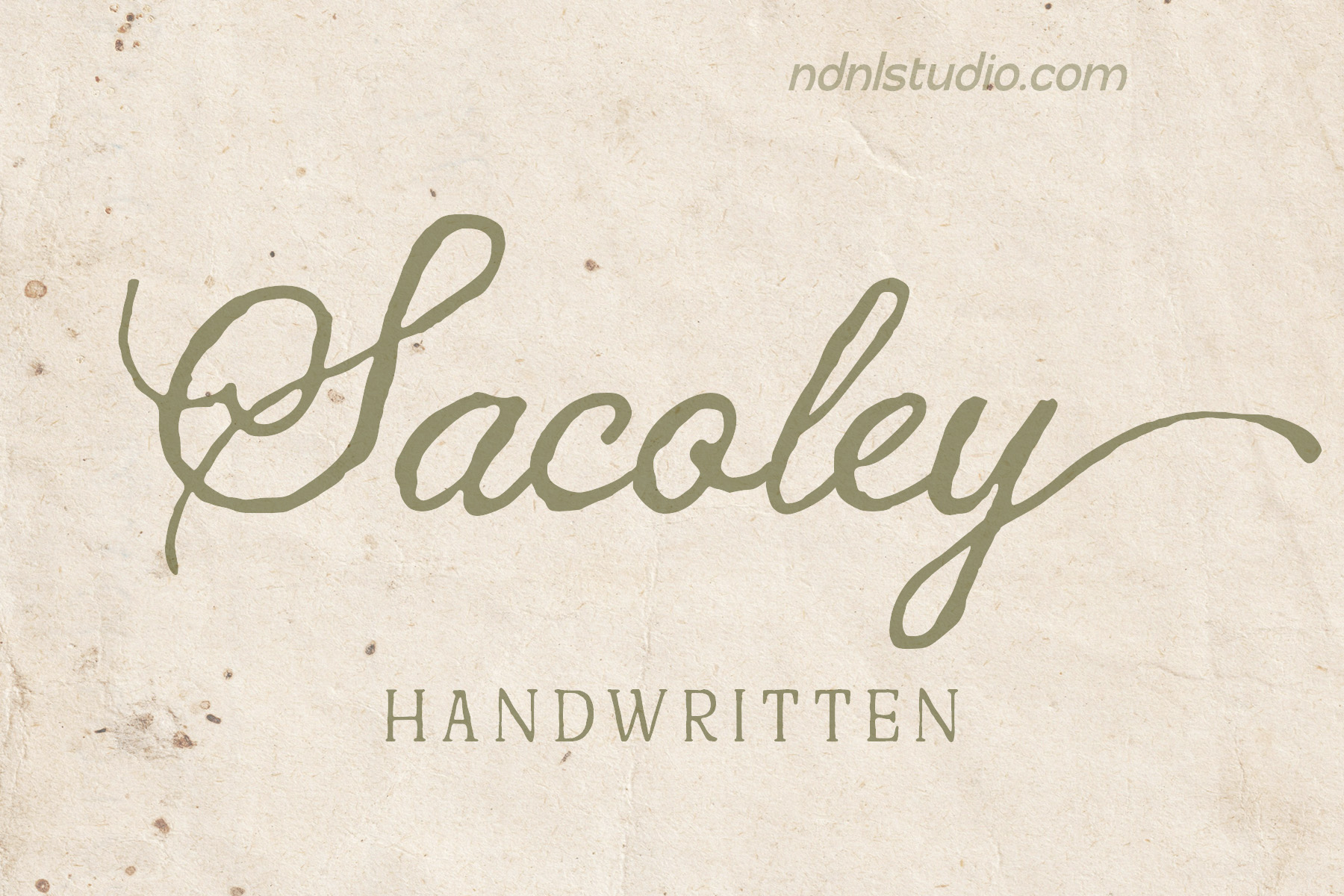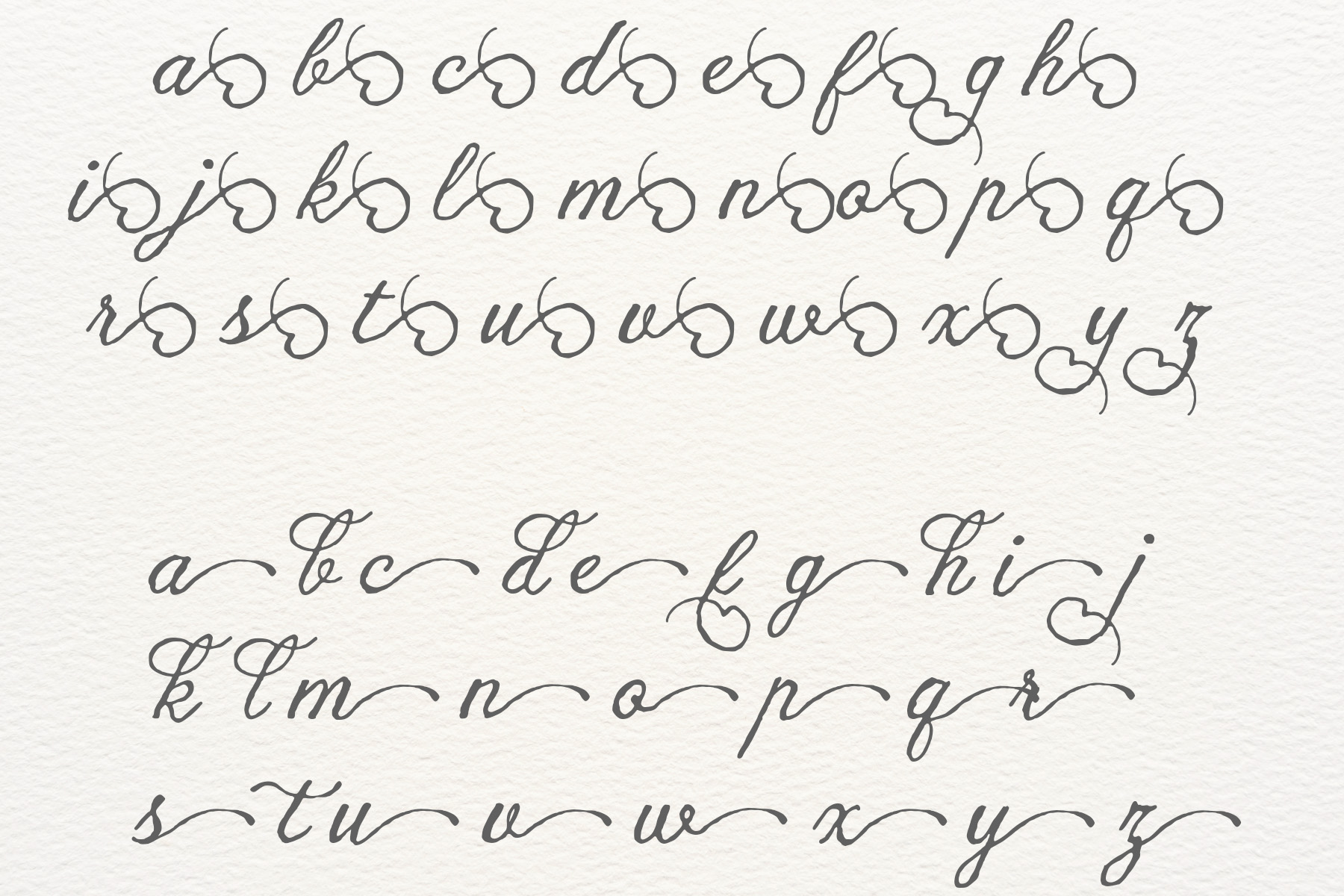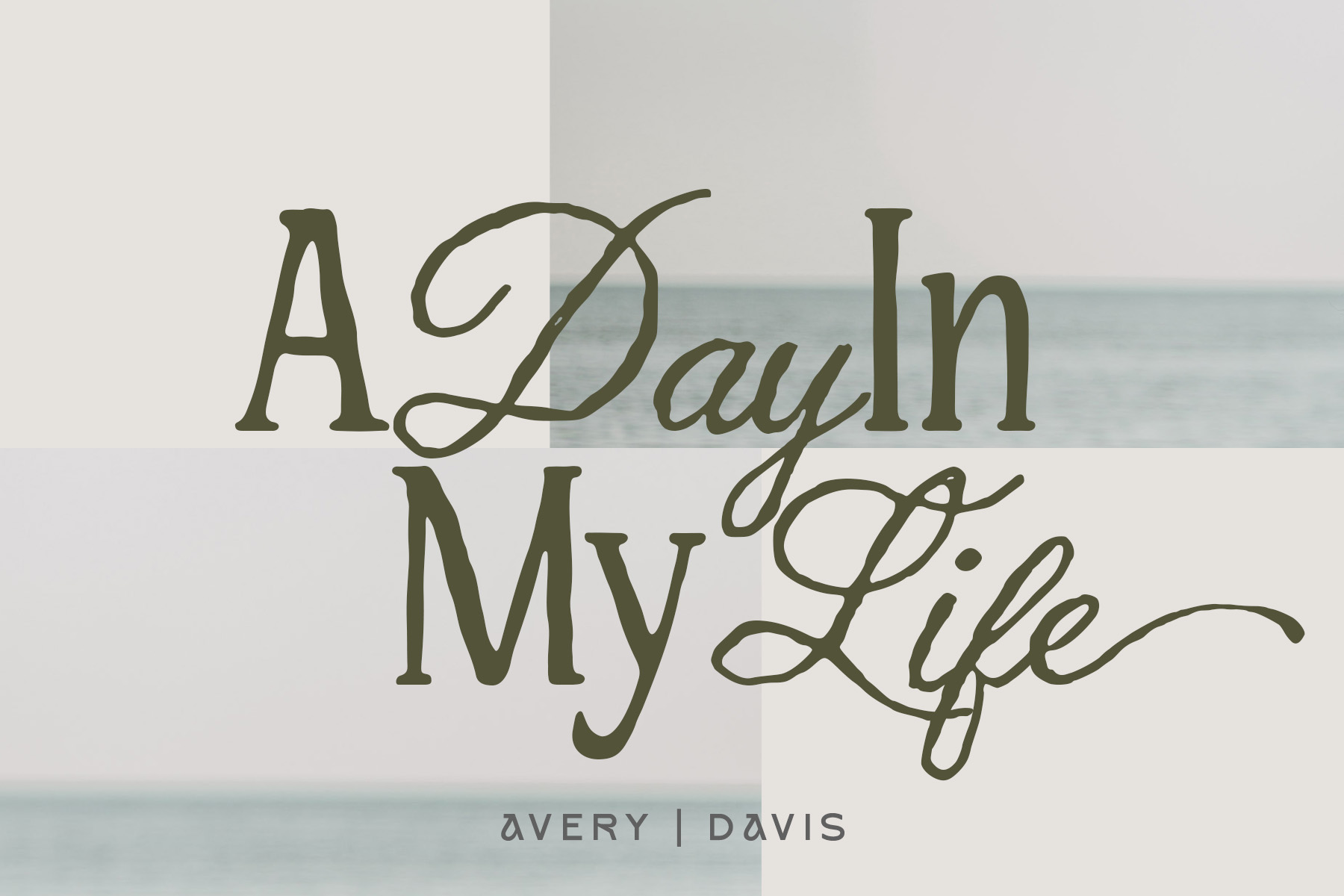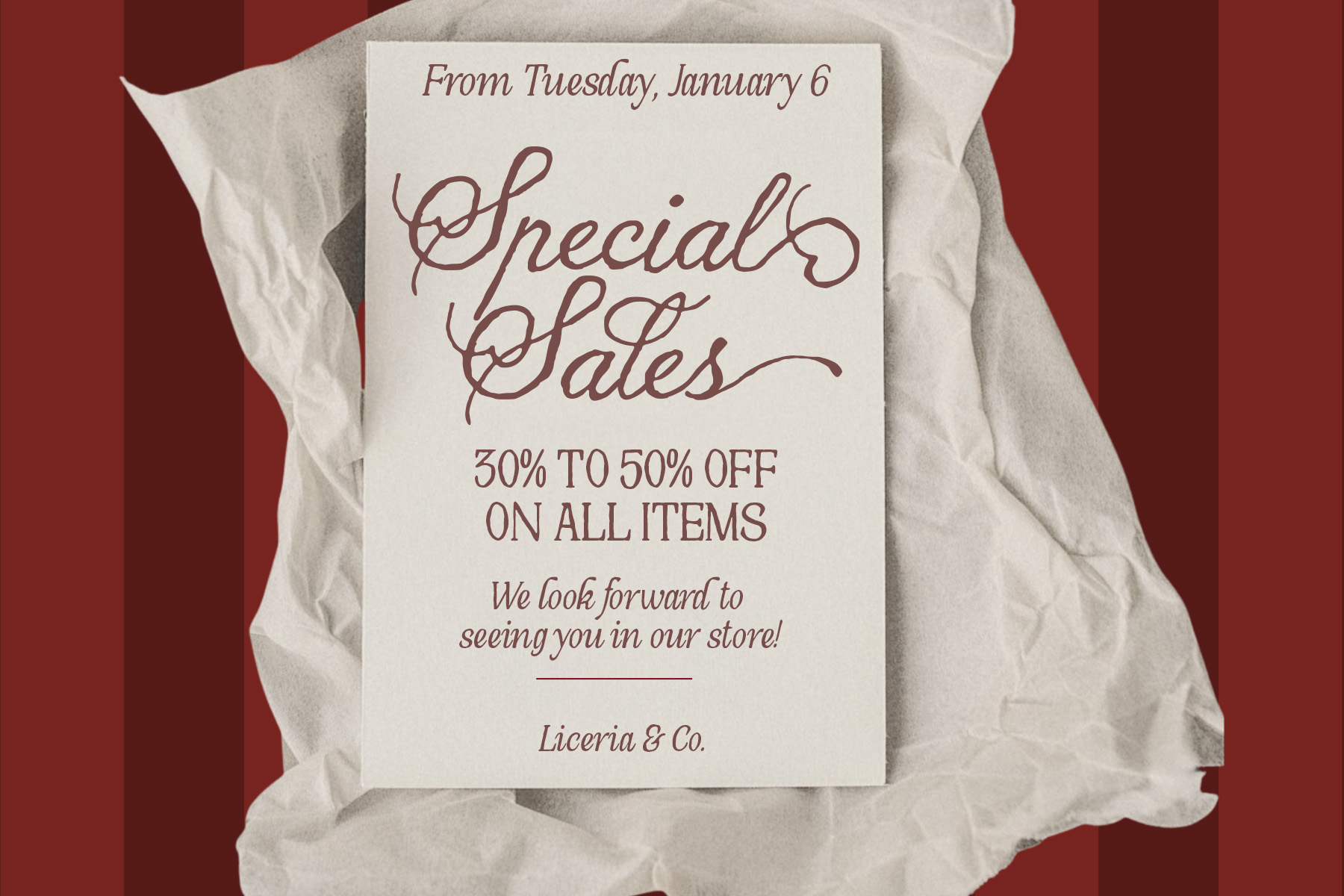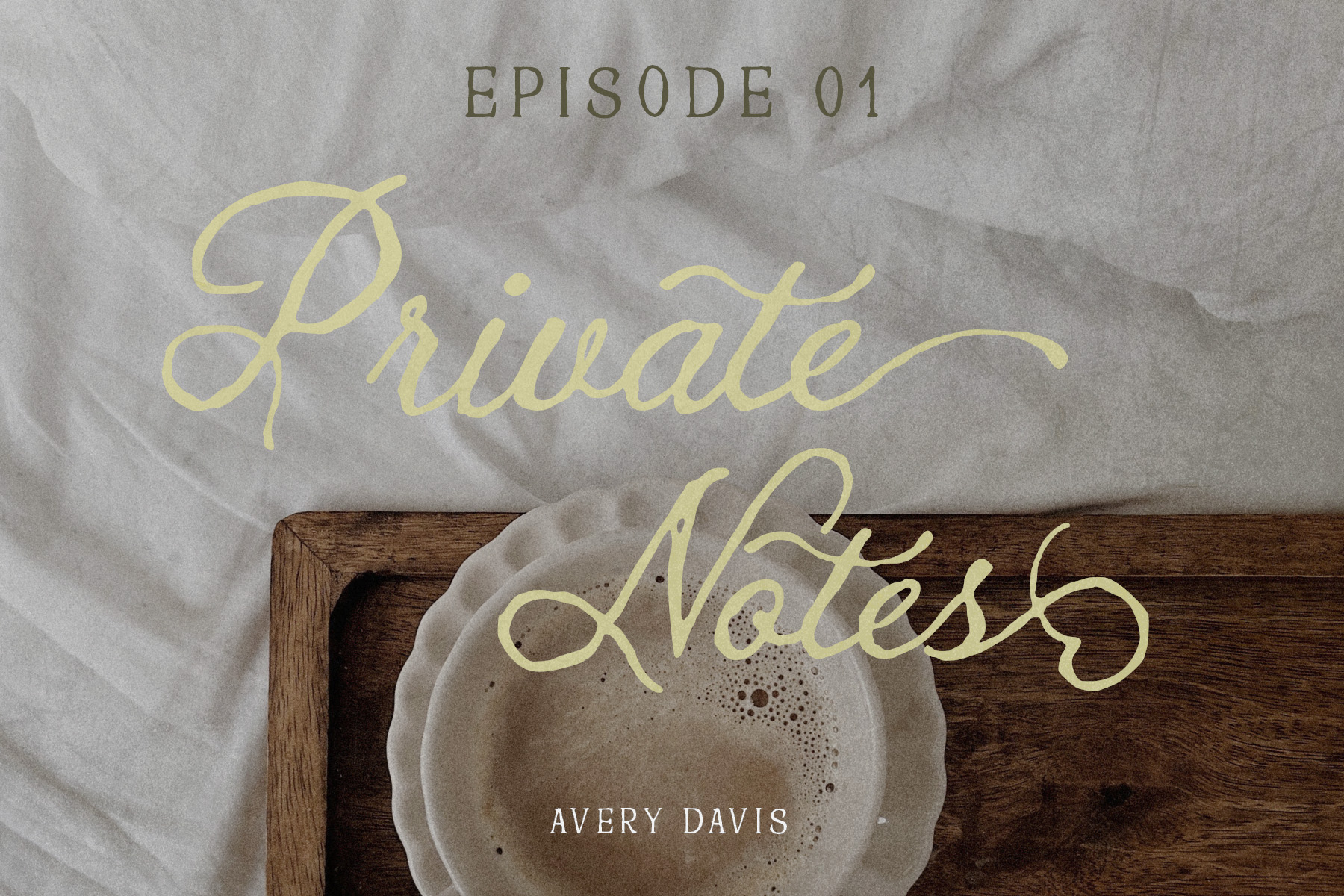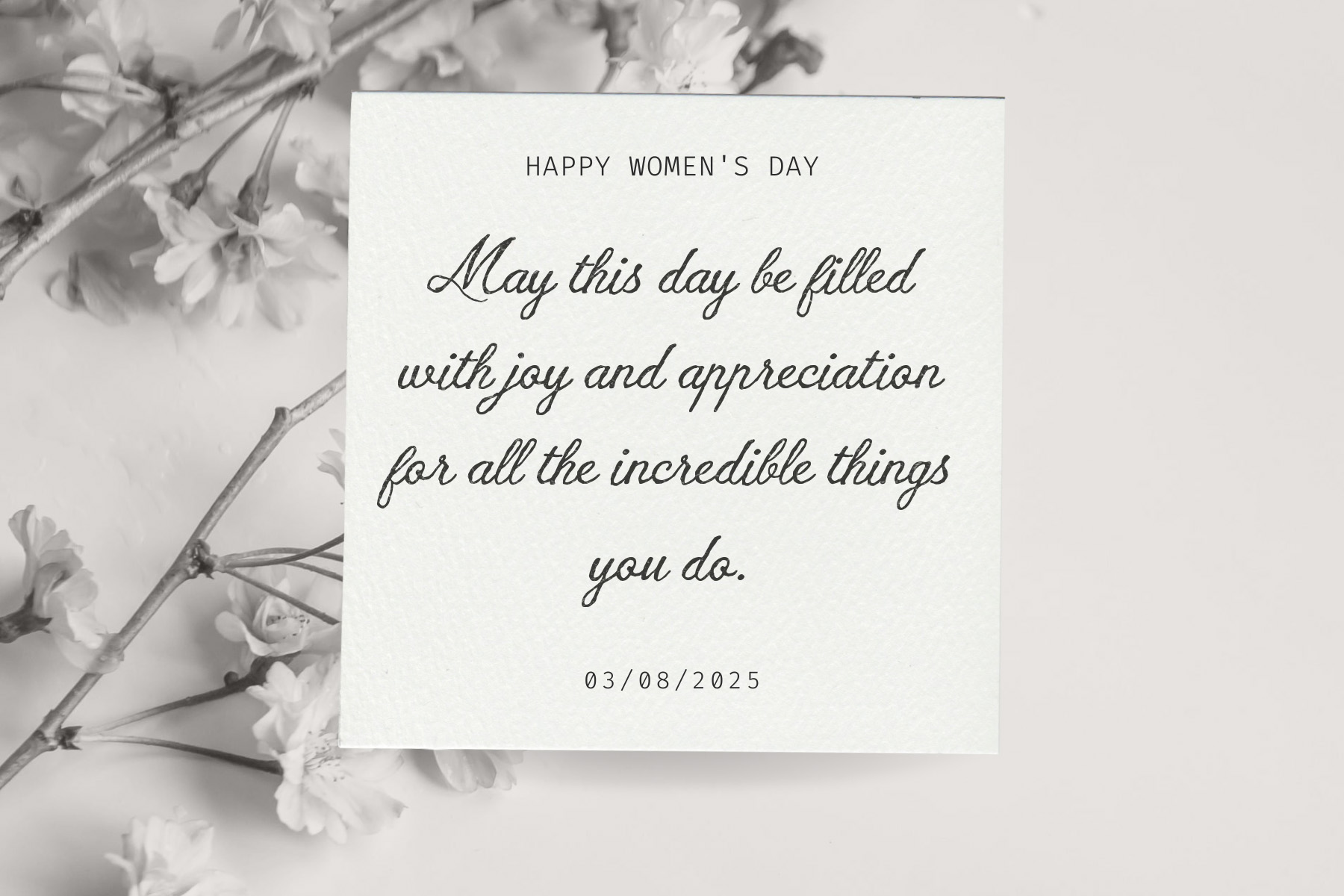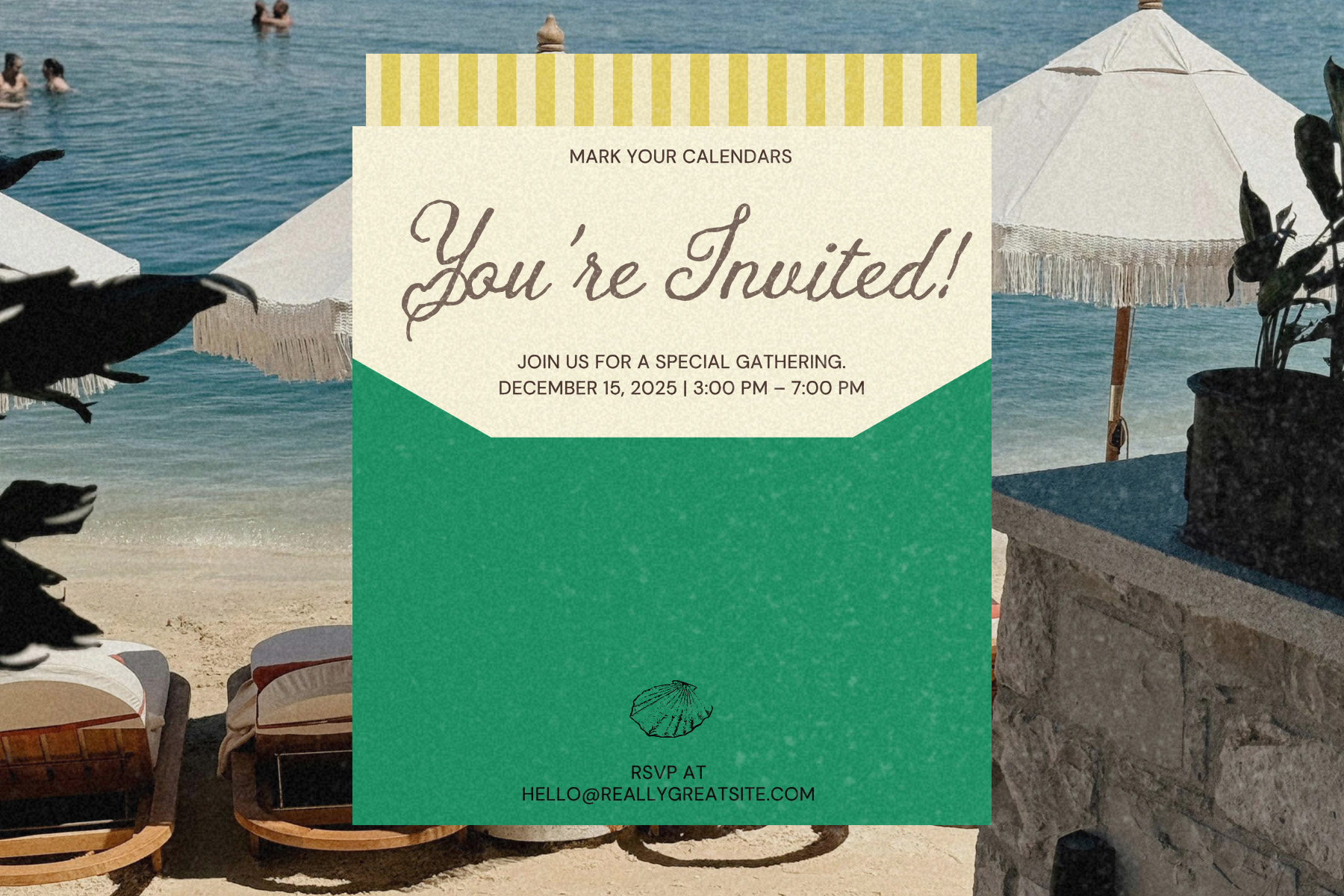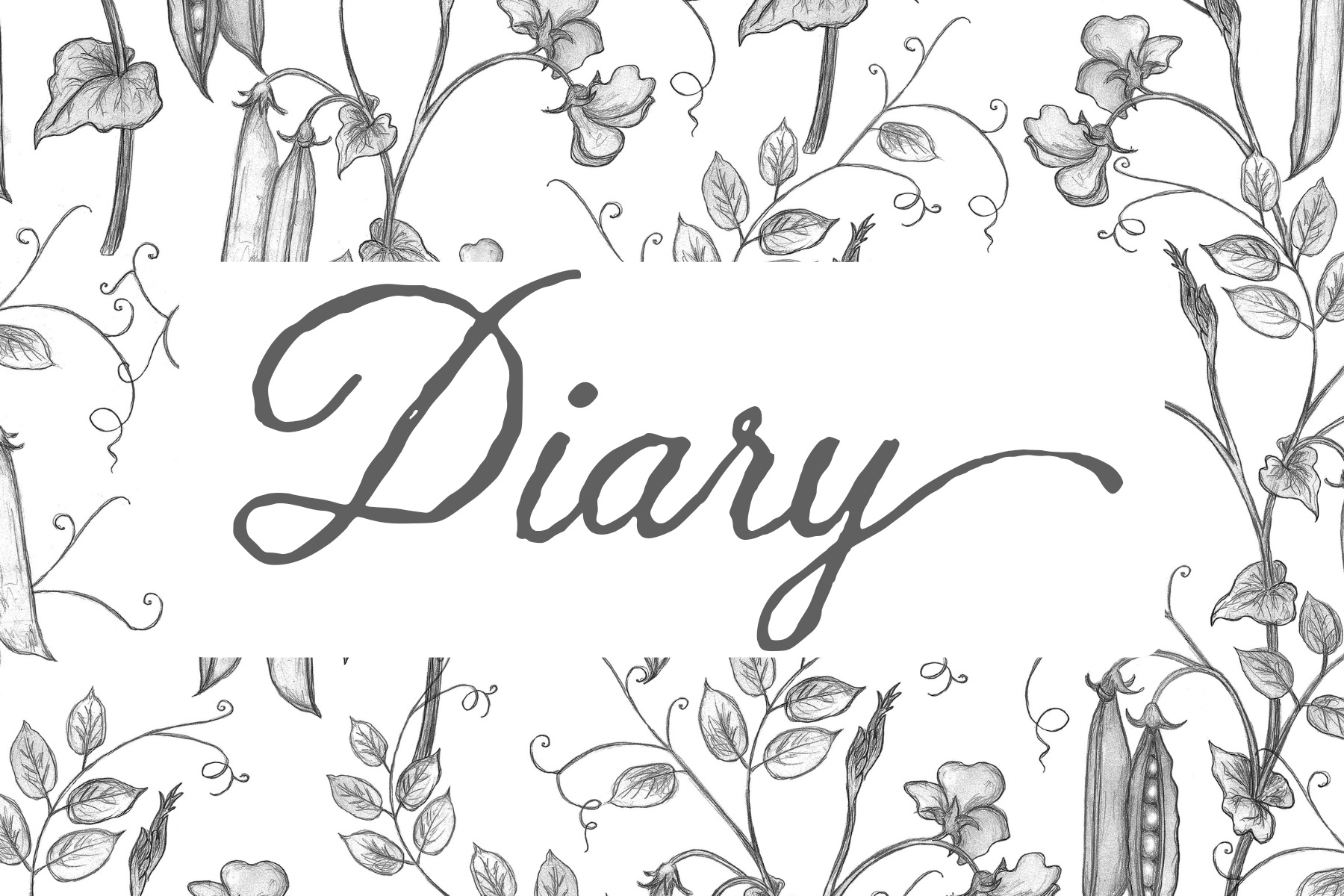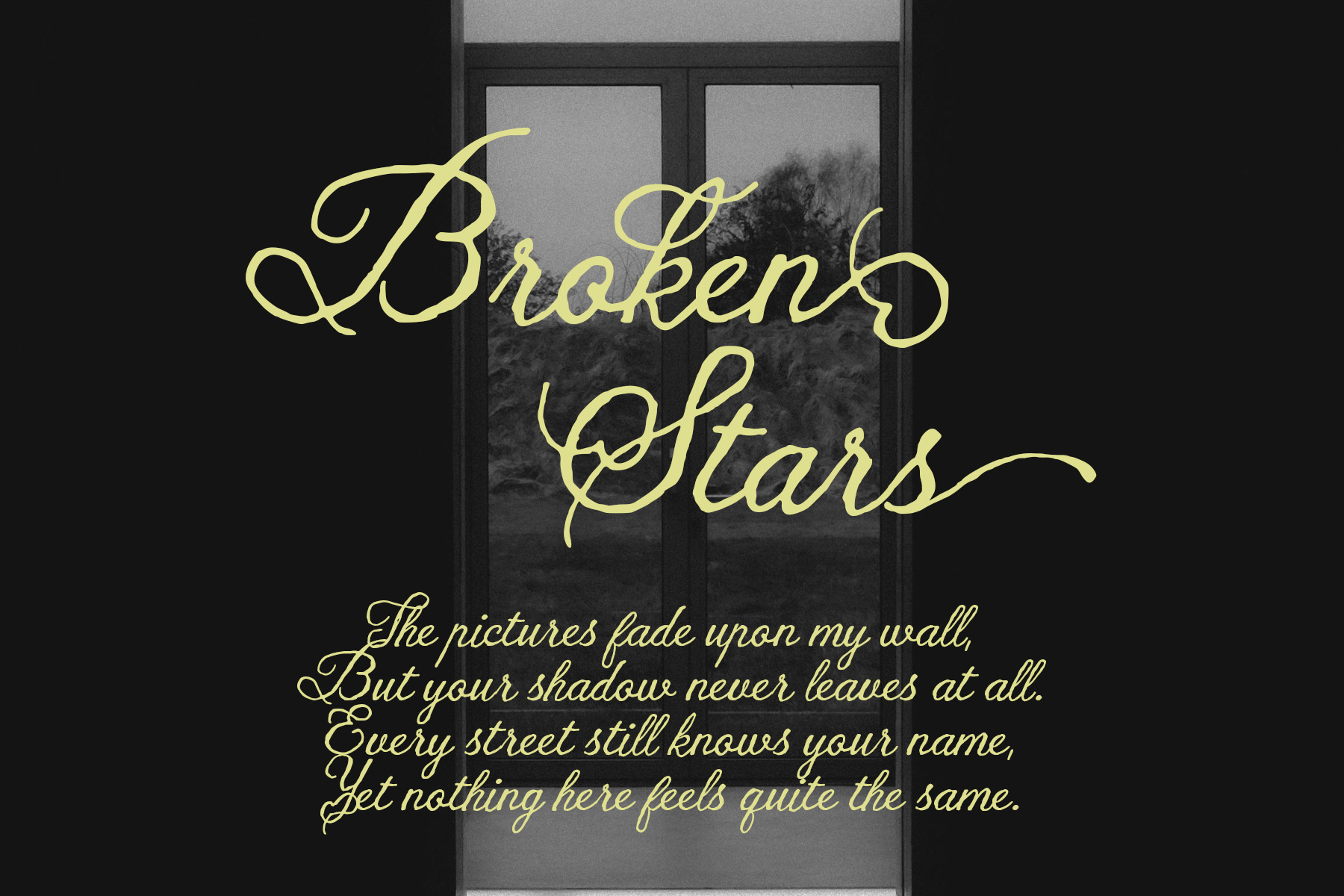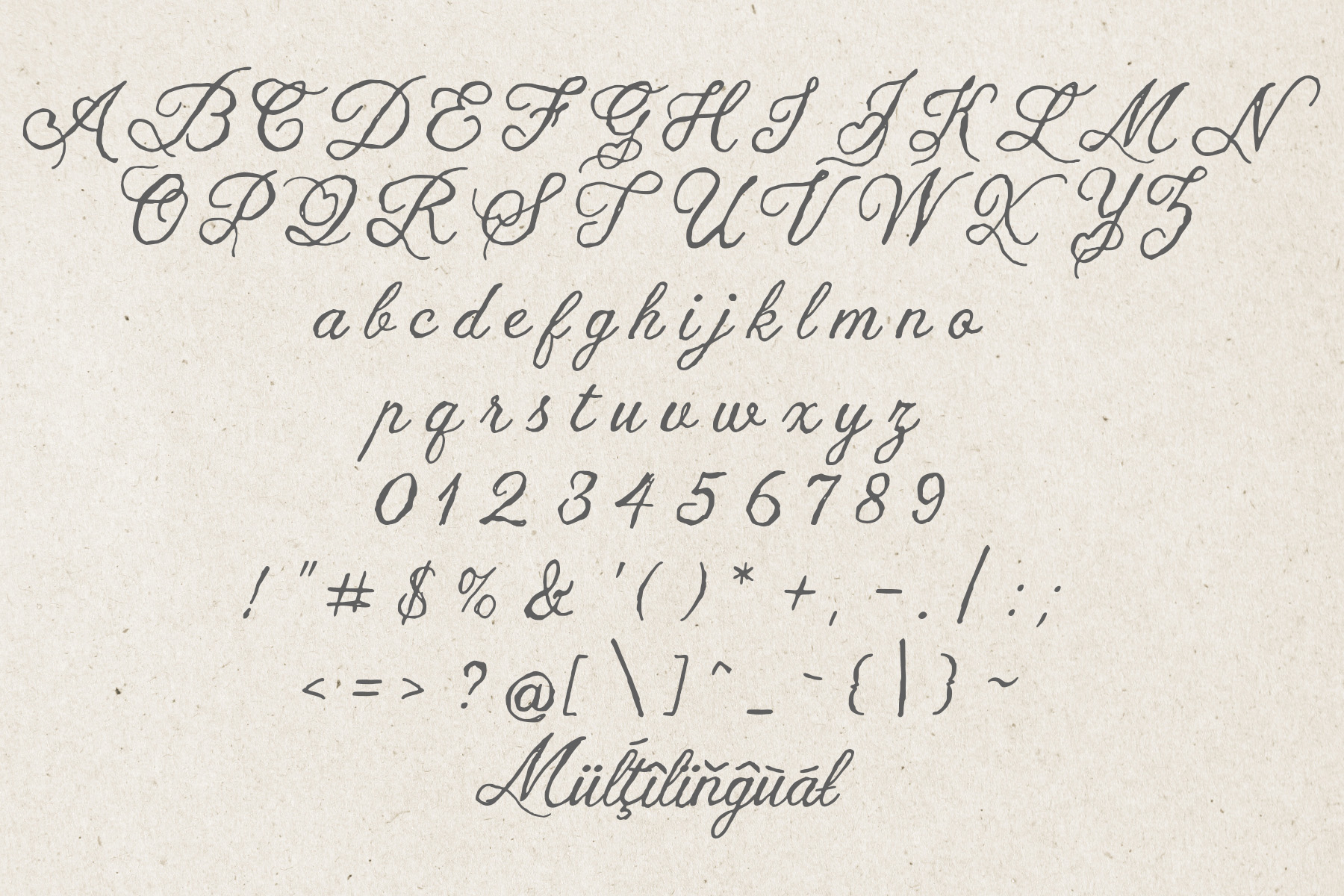
Sacoley Script Font
Sacoley
Introducing Sacoley!
Sacoley is a graceful handwritten script font that captures the warmth and authenticity of natural pen strokes. Designed with flowing curves, delicate swashes, and a relaxed organic rhythm, it brings a personal and elegant touch to every project.
Whether you’re creating logos, branding, wedding invitations, packaging, social media graphics, or signature-style typography, Sacoley adds a timeless handcrafted charm that feels both sophisticated and effortless. The smooth connections and expressive letterforms make it ideal for designs that seek beauty, intimacy, and individuality.